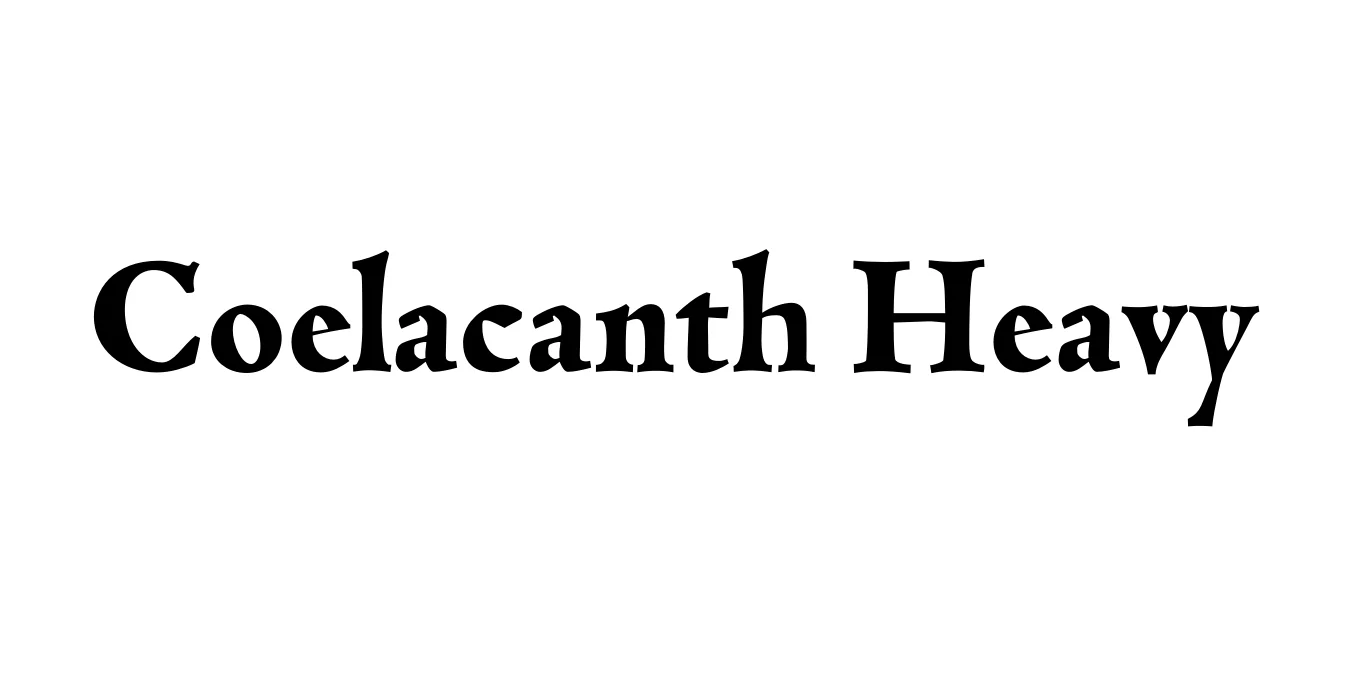
Coelacanth Heavy
Designed by Ben Whitmore
Coelacanth Heavy is a robust and sophisticated typeface that belongs to the larger Coelacanth family, a design inspired by Bruce Rogers' legendary Centaur. This typeface is a modern interpretation of the 15th-century Venetian types of Nicolas Jenson, characterized by its slanted crossbar on the lowercase 'e' and distinct old-style serif features. The Heavy weight provides a powerful presence while maintaining the delicate organic feel and historic elegance inherent in its Renaissance-era roots.
Developed by Ben Whitmore, the Coelacanth project is notable for its extensive range of optical sizes and weights. The Heavy variant is specifically engineered for high-impact display use, offering exceptional legibility and a classical aesthetic that stands out in print and digital media. It bridges the gap between traditional craftsmanship and contemporary digital font technology, making it a favorite for designers seeking a timeless, authoritative look for high-end projects.
Coelacanth Heavy Best Uses
Perfect for classic literature covers and high-end editorial titles.
Ideal for luxury brands and heritage-focused corporate identities.
Creates an authoritative and artistic statement in large format posters and signage.